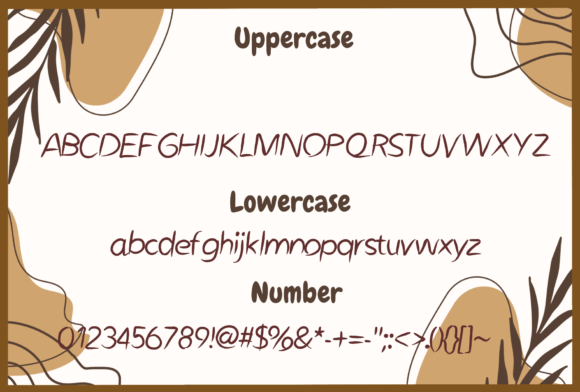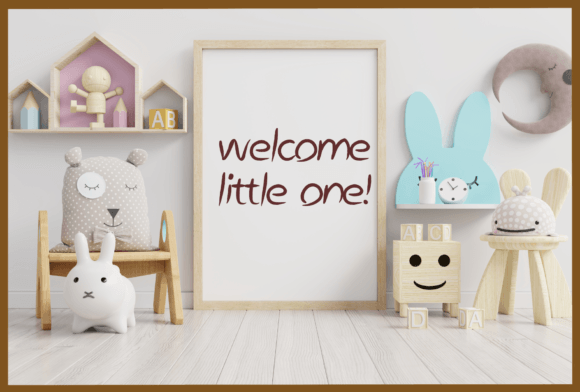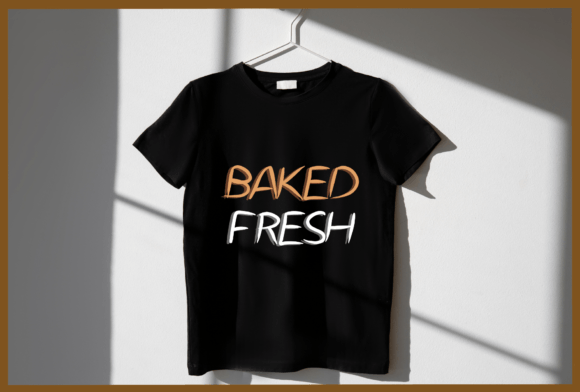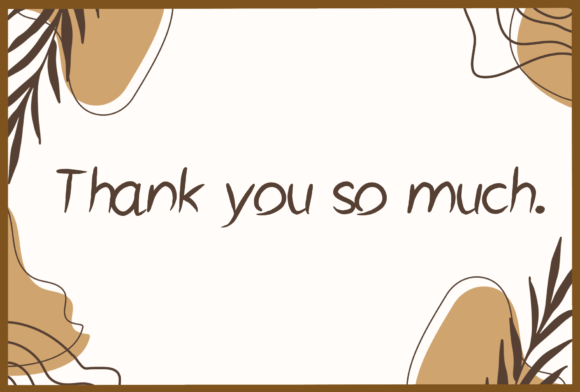
Introduction to My Friends Font
Have you ever been working on a creative project, and the perfect font just slips right out of your mind? You know, that one font that adds a touch of personality to your design and makes it truly special? For me, that font is My Friends Font – a cute and casual handwritten font that never fails to bring a smile to my face.
Key Features of My Friends Font
- High-quality, unique design perfect for creative projects and personal use.
- Unique characteristics include swashes, ligatures, and alternate characters, adding an extra layer of creativity to any design project.
- Perfect for use in digital art, graphic design, and typography-based projects, where a distinctive and eye-catching font is essential.
Honest Review: My Friends Font
What works well: ✨ My Friends Font has a unique, playful style that’s perfect for projects where you want to add a touch of whimsy. The font is highly customizable, and I love the variety of characters and glyphs included. The transparent background is also a nice touch, making it easy to overlay text on different images and designs.
- ✨ Unique and playful style
Limitations: ⚠️ While My Friends Font is a great design resource, it’s not without its limitations. The font can be a bit tricky to use on smaller screens, and some of the characters may not render correctly. Additionally, the font’s style may not be suitable for all types of projects.
Overall impression: I really enjoy working with My Friends Font, and I appreciate the effort that went into creating this unique and versatile design resource. If you’re looking for a fun and playful font to add some personality to your creative projects, I highly recommend giving My Friends Font a try.
My Friends Font is perfect for creative projects, such as invitations, posters, and social media graphics. It’s also great for professional designs, like resumes, business cards, and presentations. Its high-quality design and transparent background make it a versatile design resource for any project.
Yes, My Friends Font is designed to be high-quality and suitable for print projects. The font’s transparent background and crisp lines make it perfect for use in brochures, business cards, and other marketing materials.